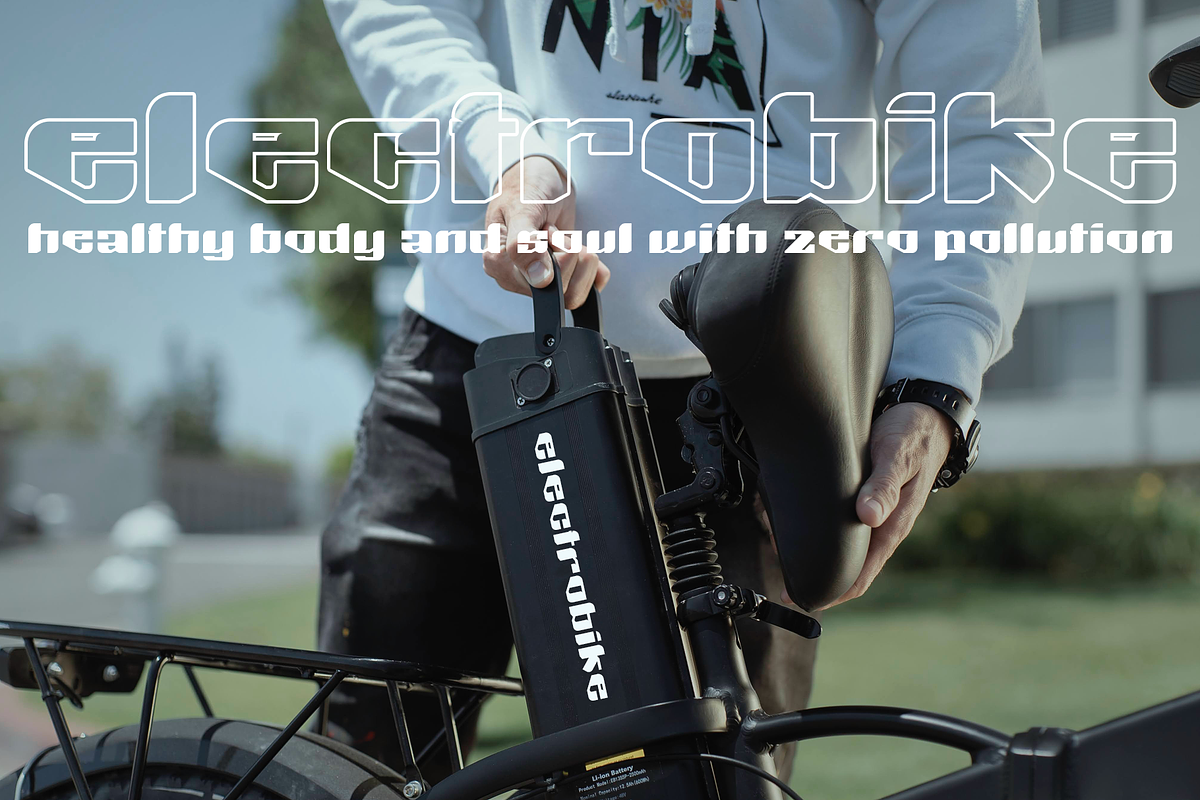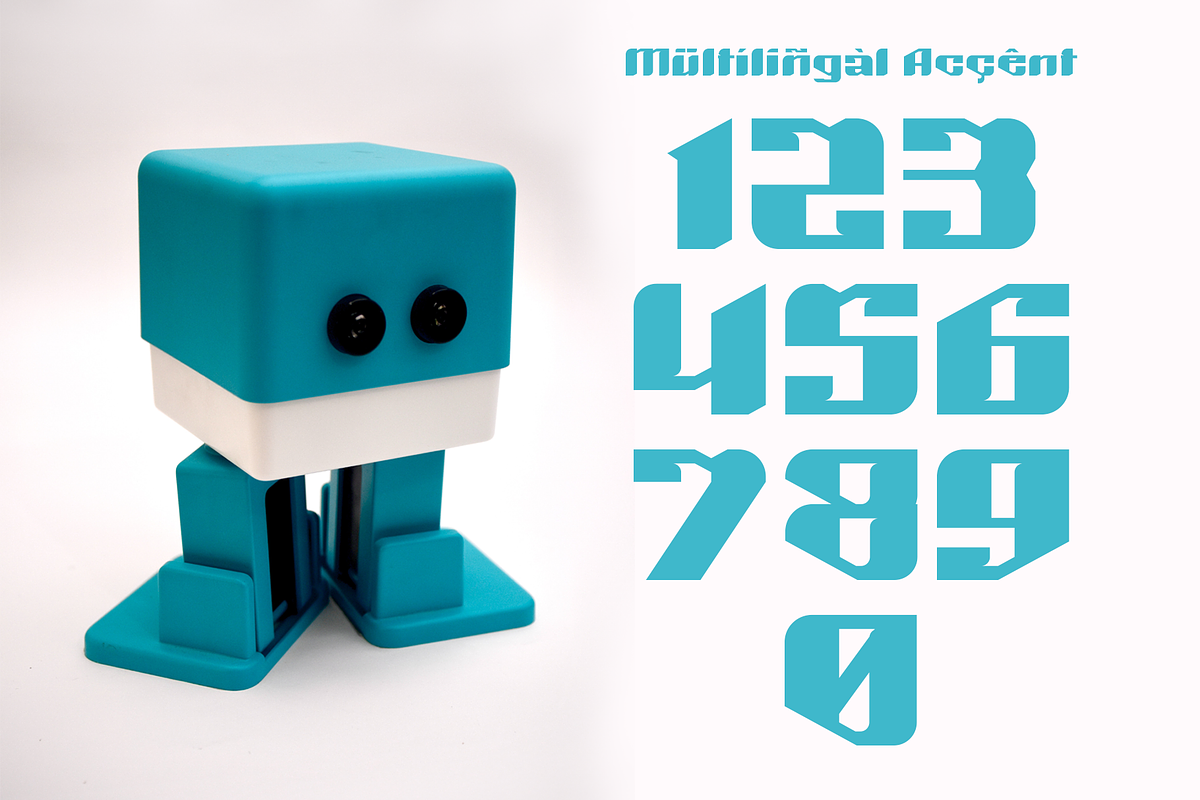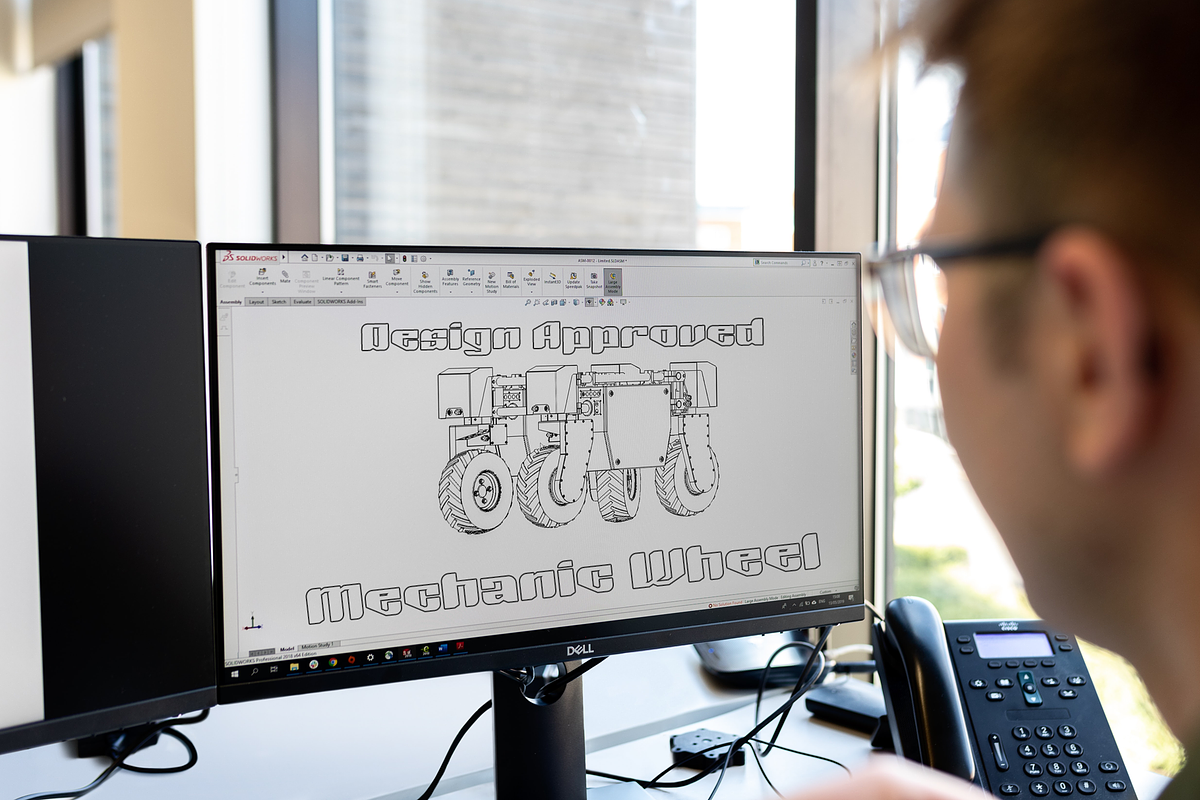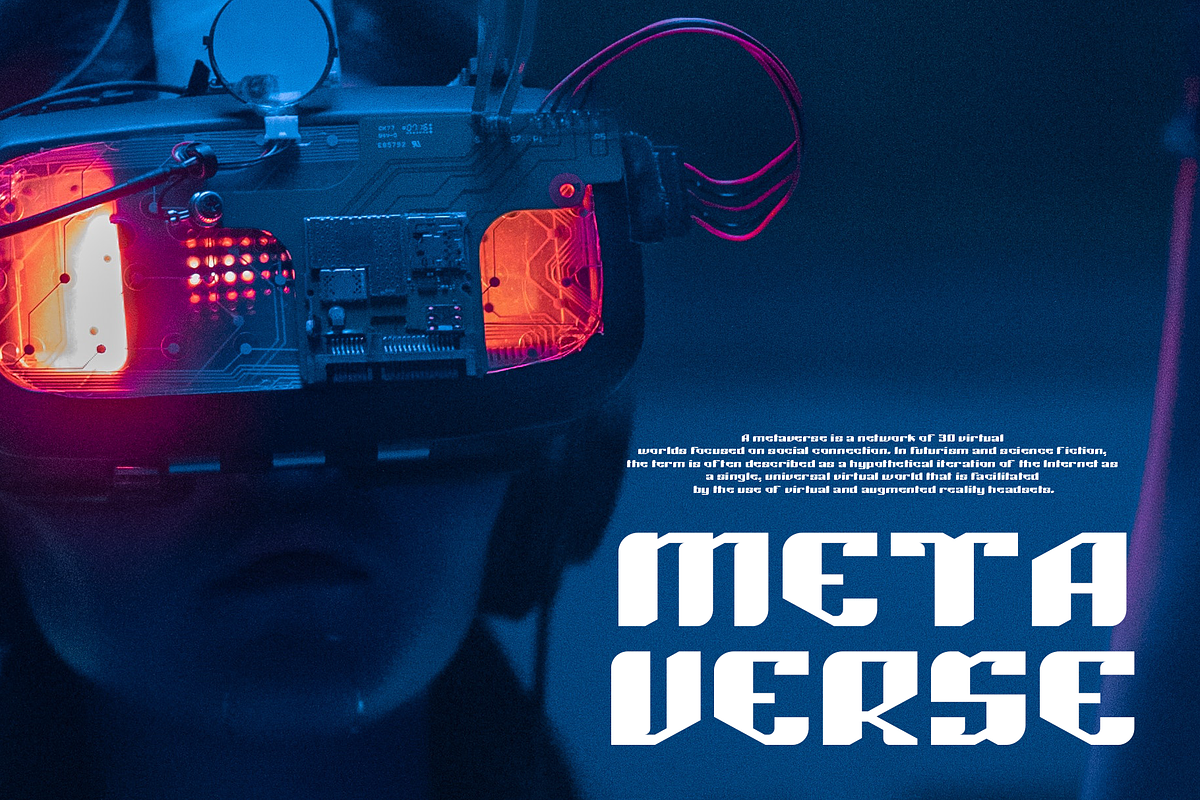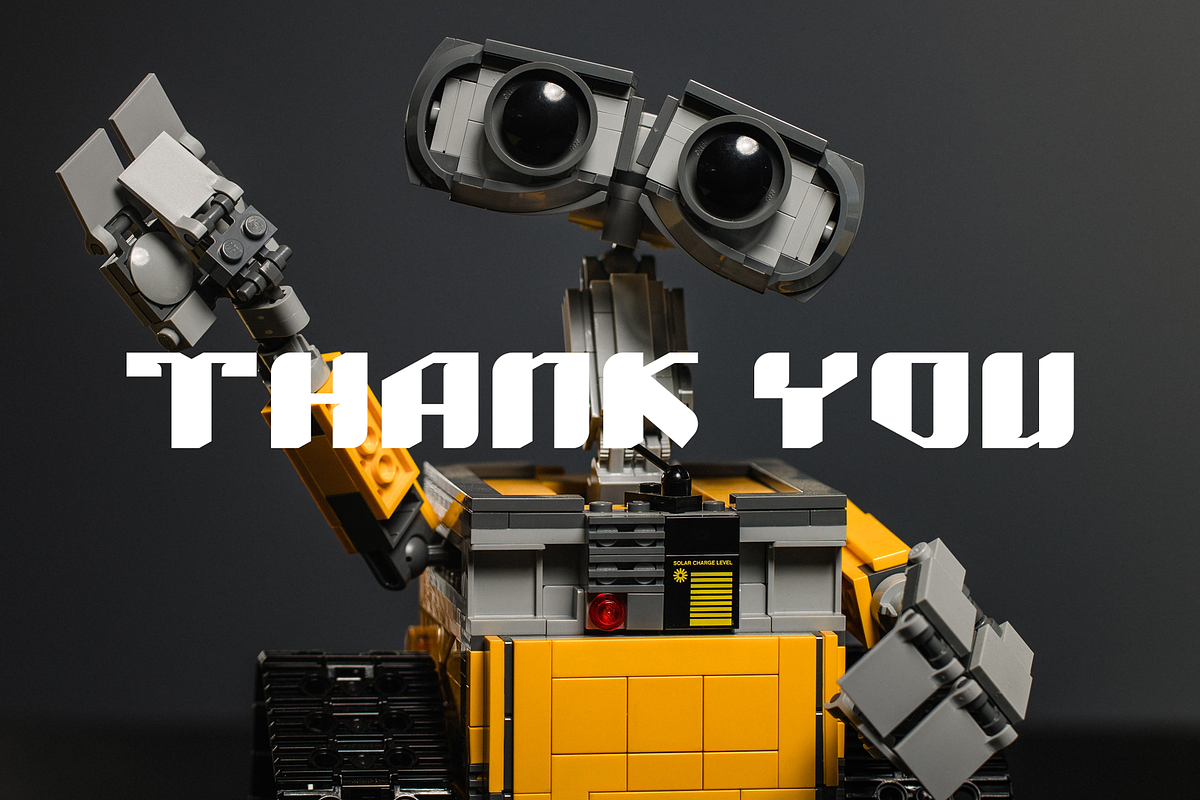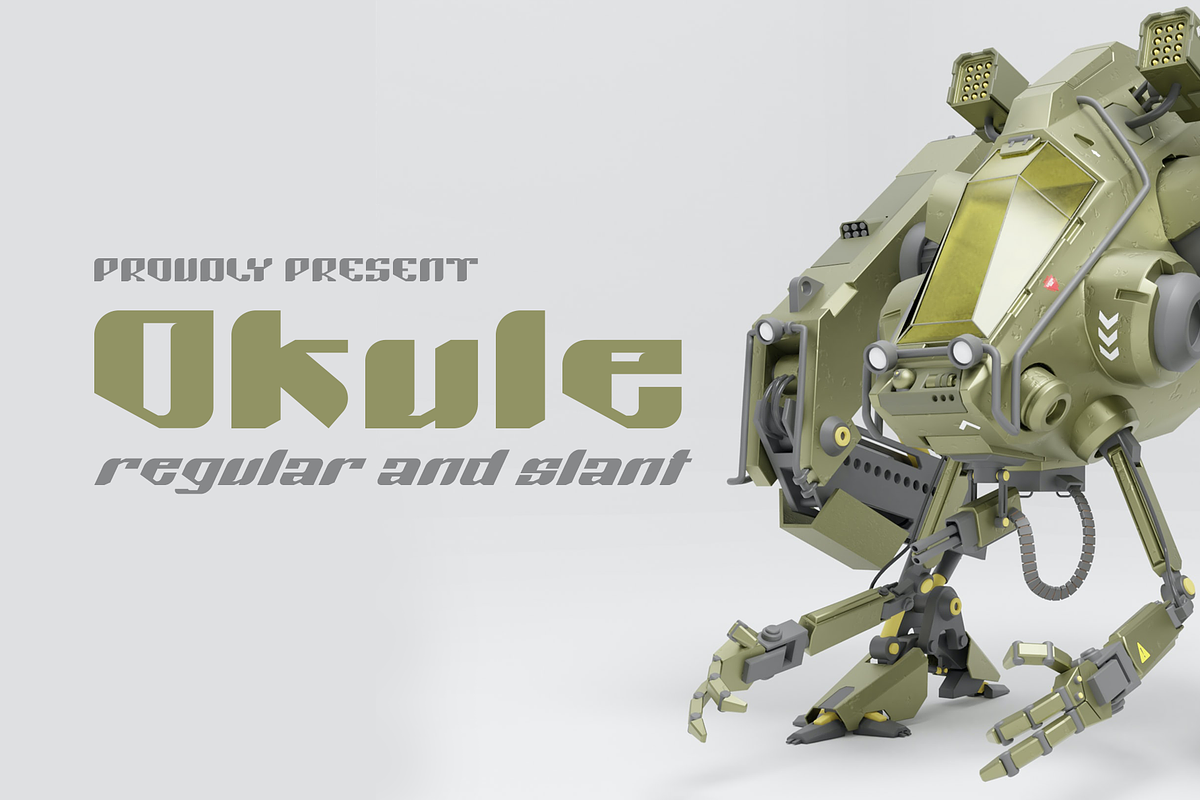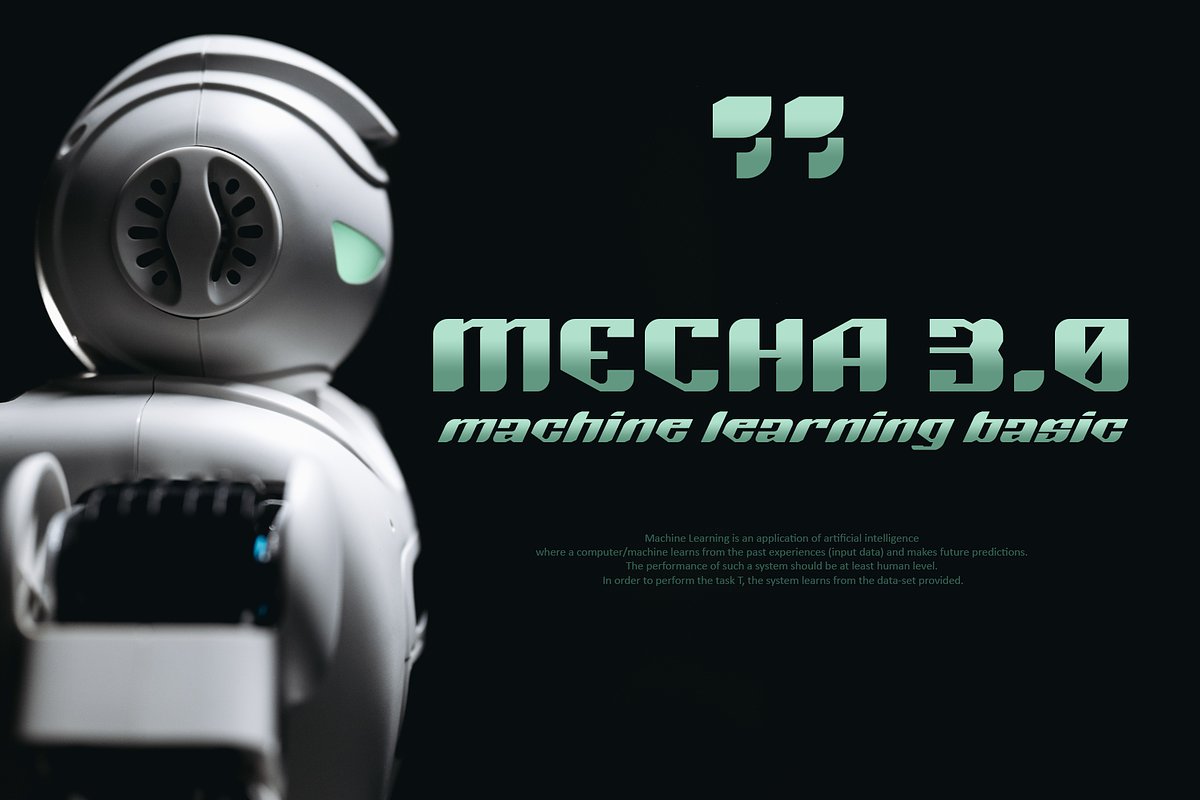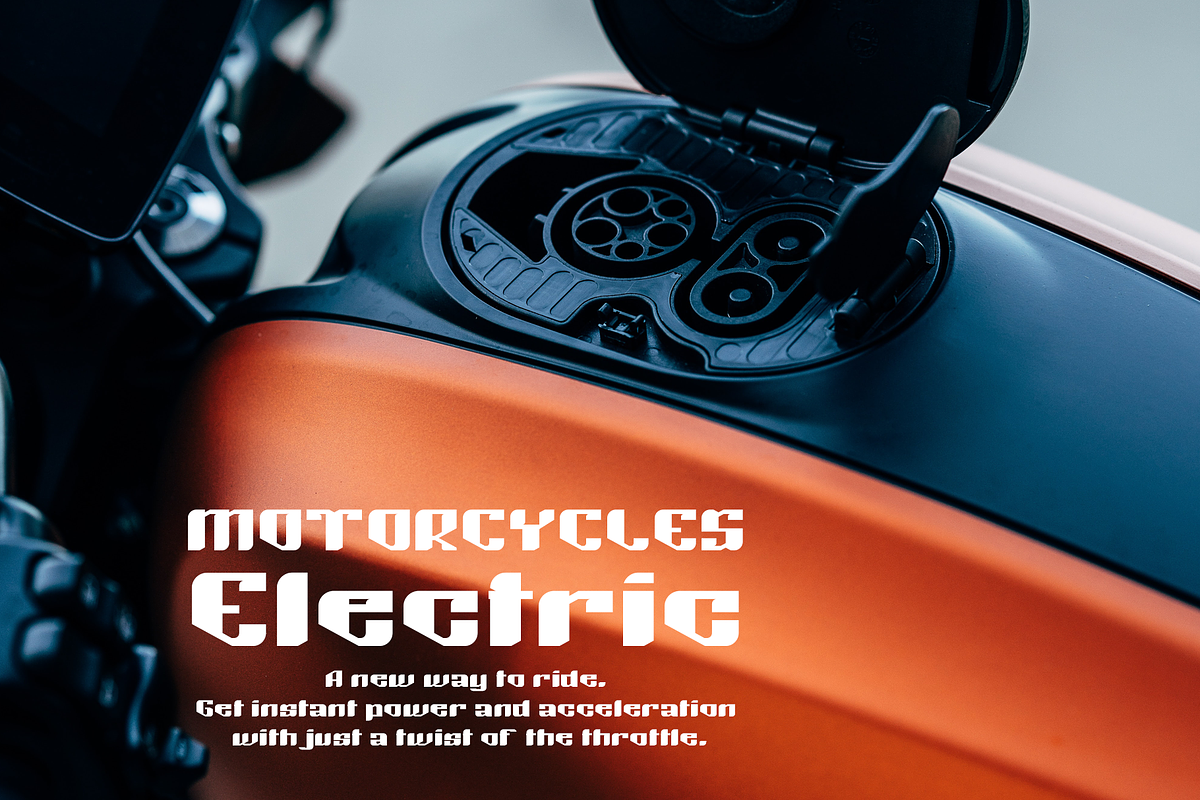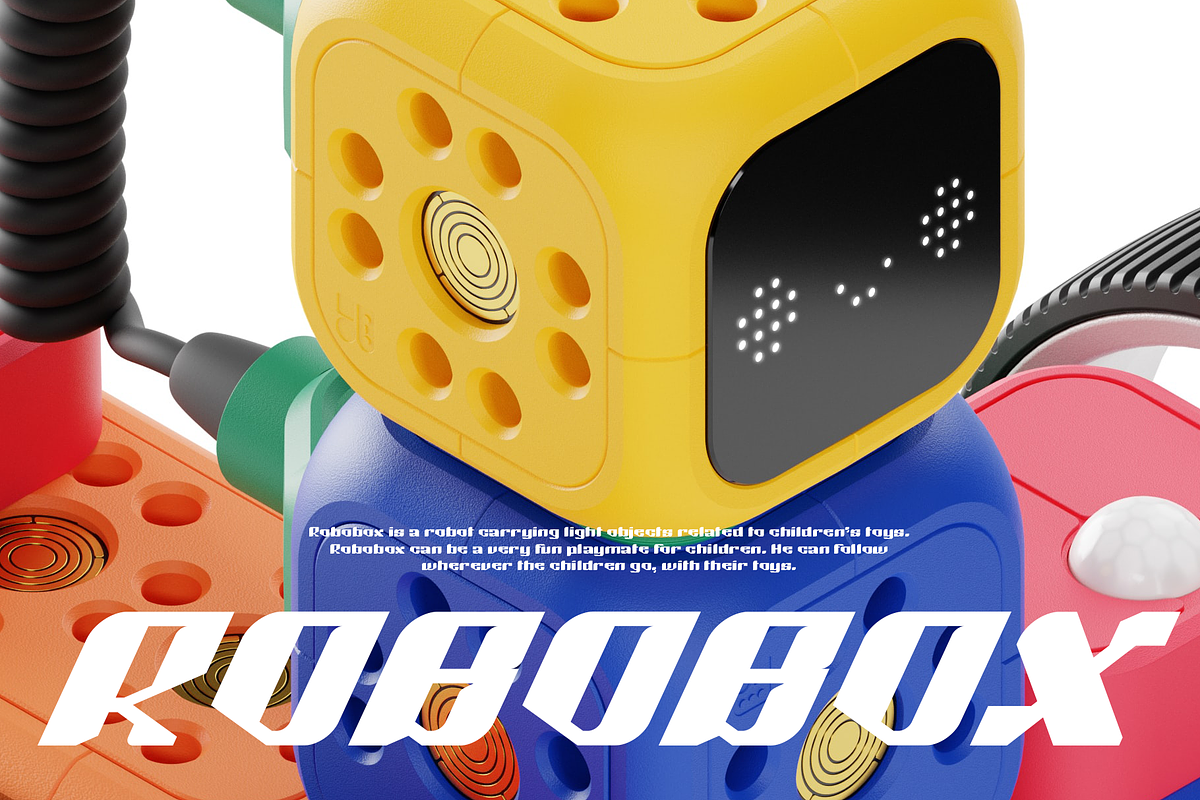
OKULE | Modern and Retro Sci-fi
OKULE is a unique futuristic and retro sci-fi typeface . This font is suitable for modern and retro games, racing, street themes, hypebeast, sci-fi, etc. Use this font for your design projects and cool apps.